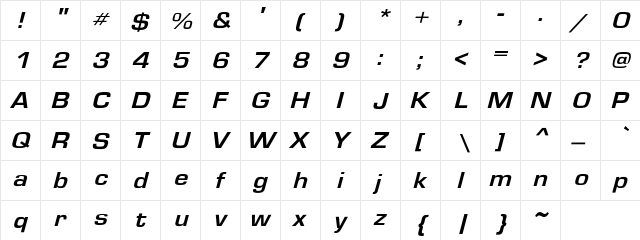
GardenwayExtObl Regular
Design Context for GardenwayExtObl Typeface
GardenwayExtObl takes a measured approach to typography — its balanced proportions and neutral character make it a reliable workhorse for both digital and print work.